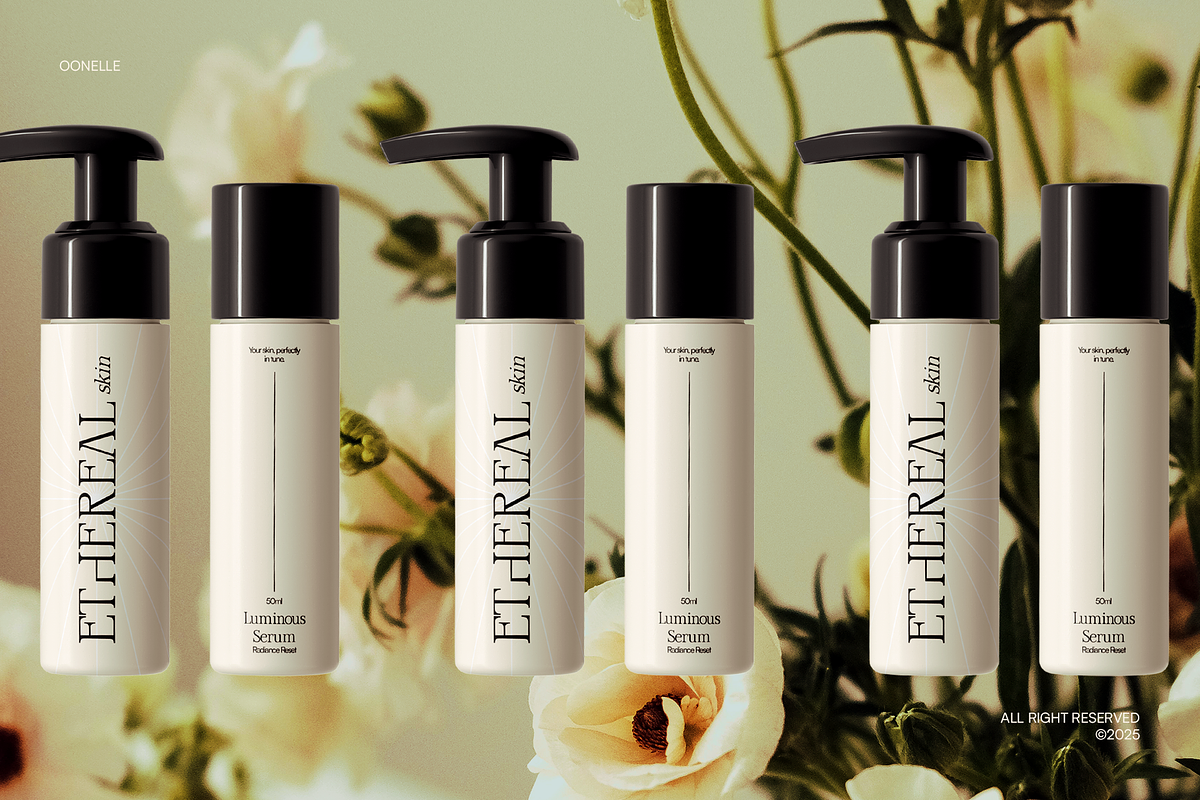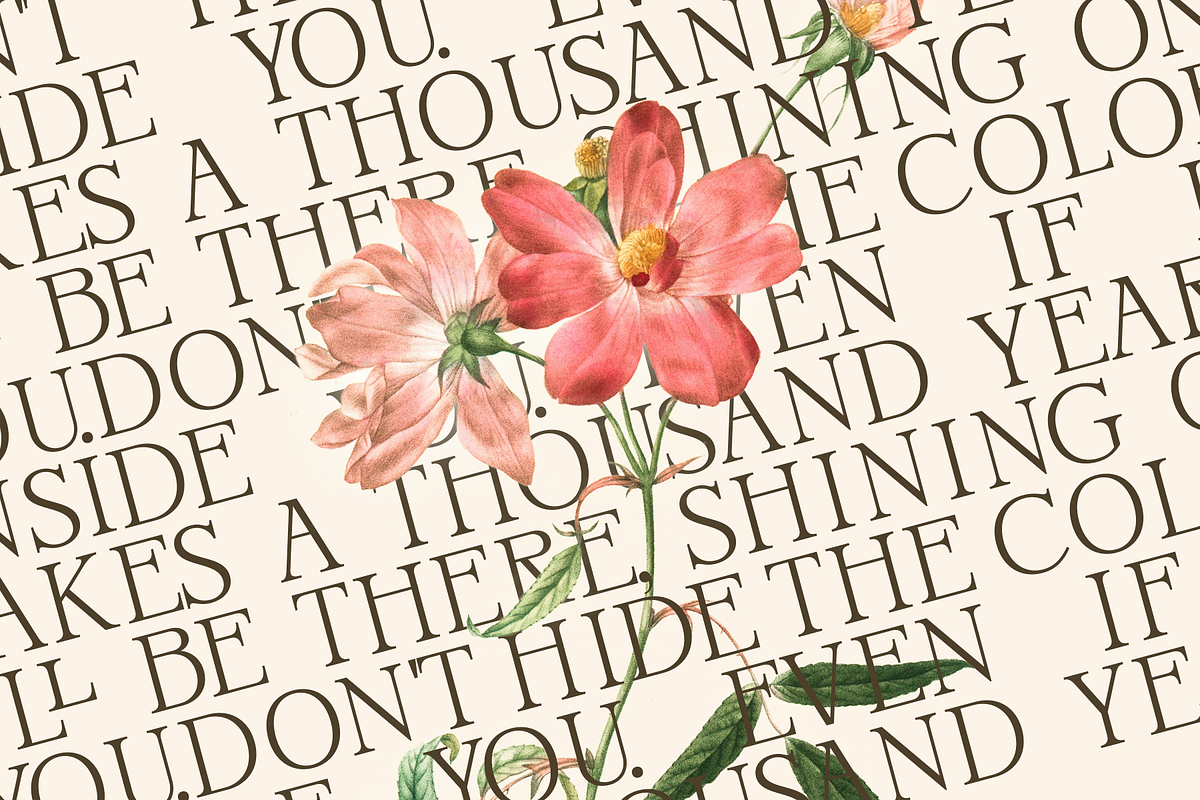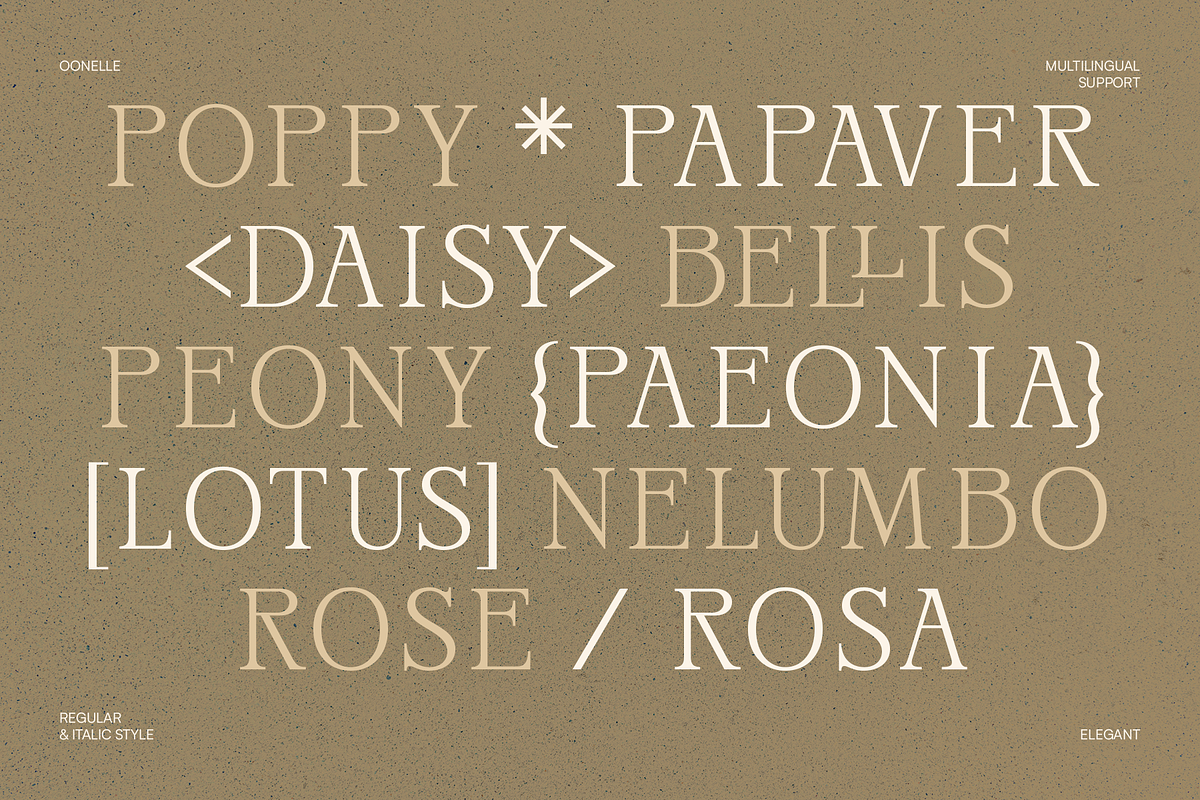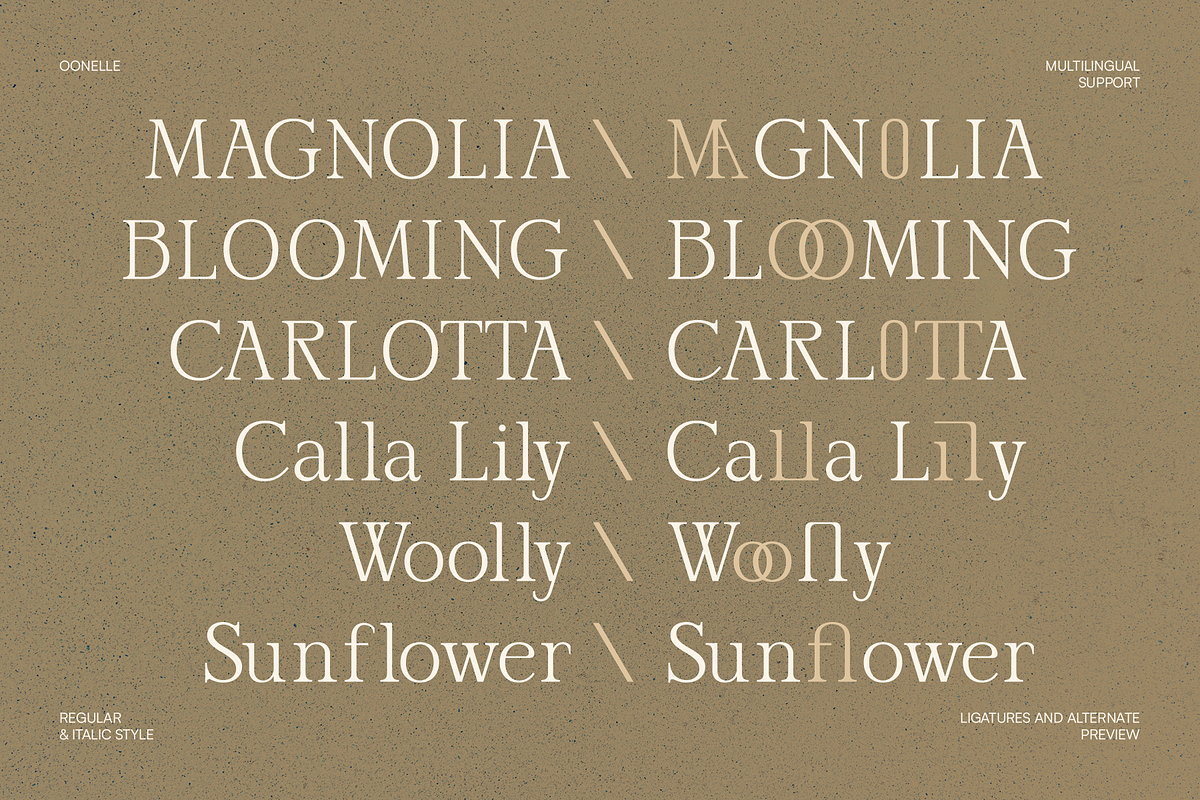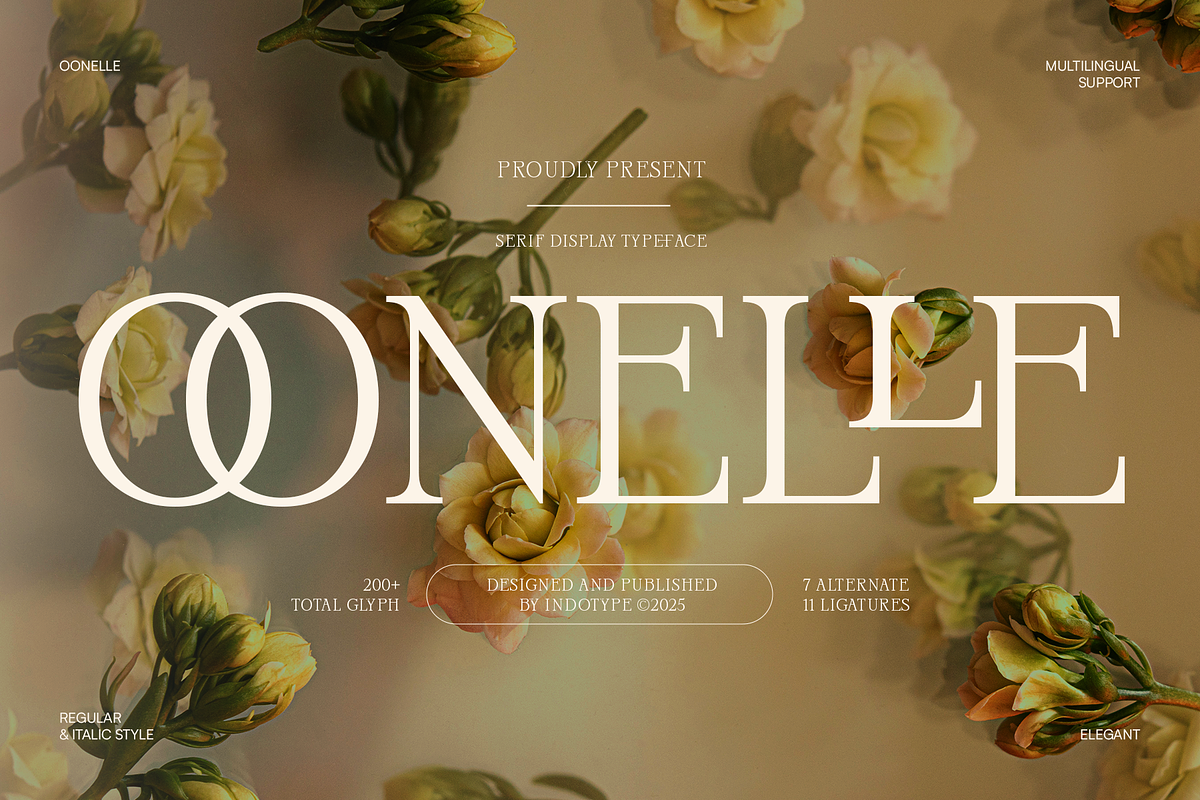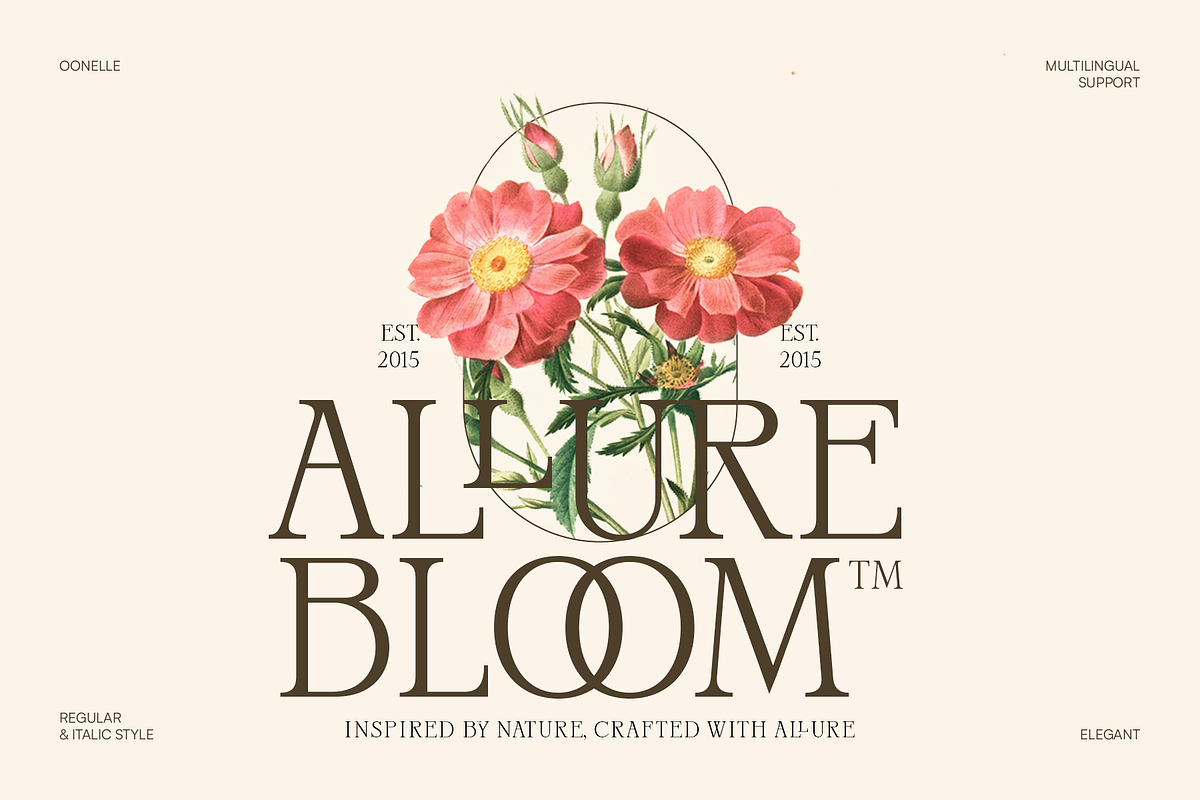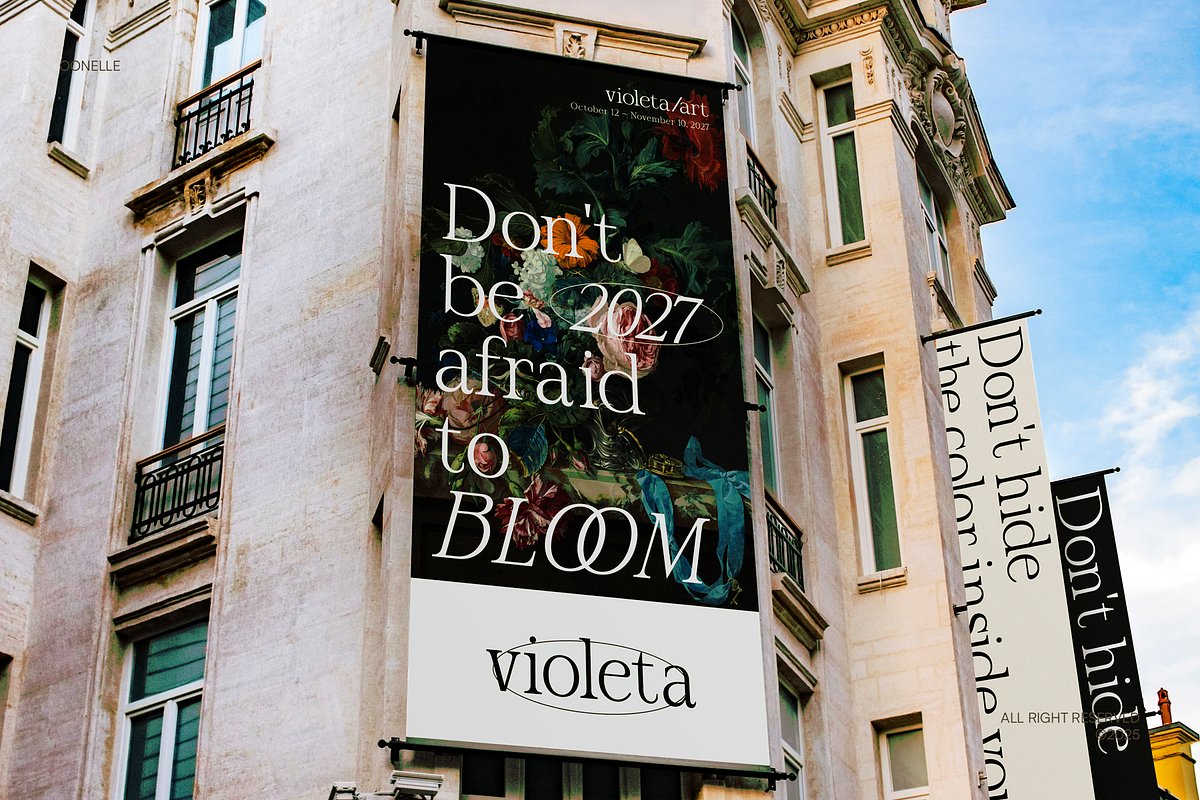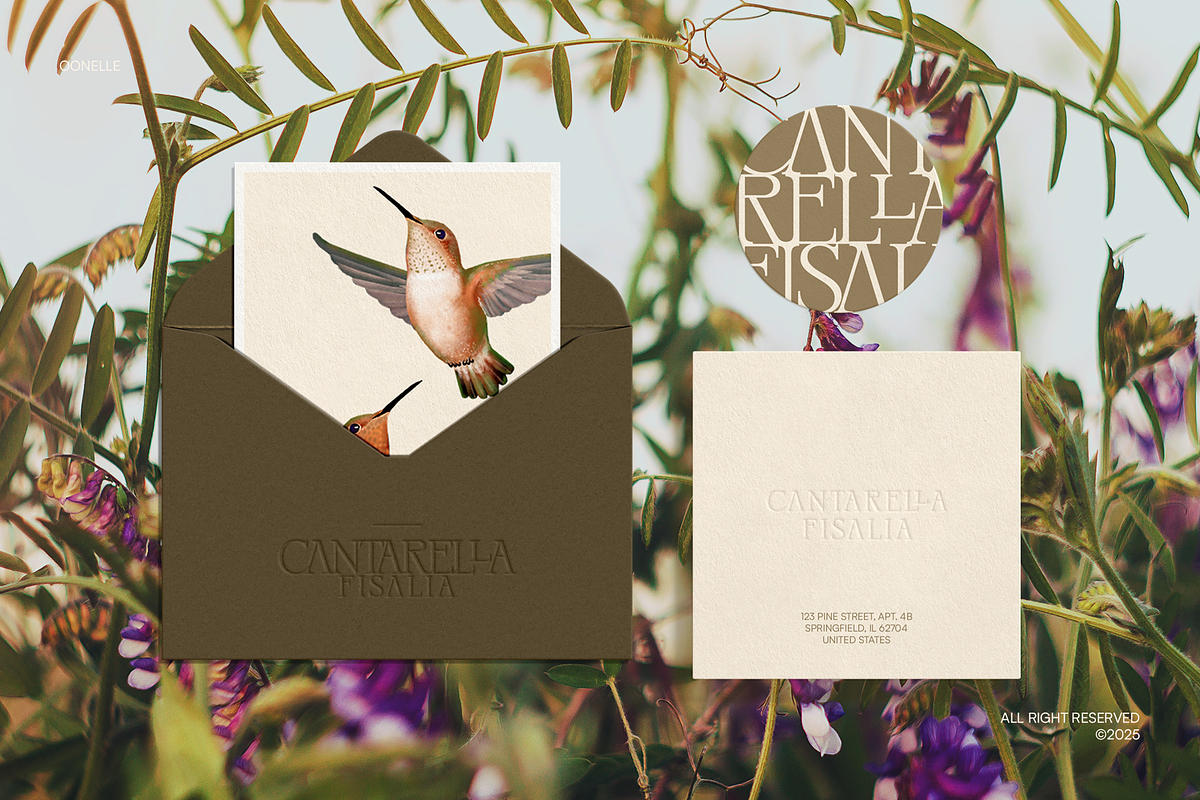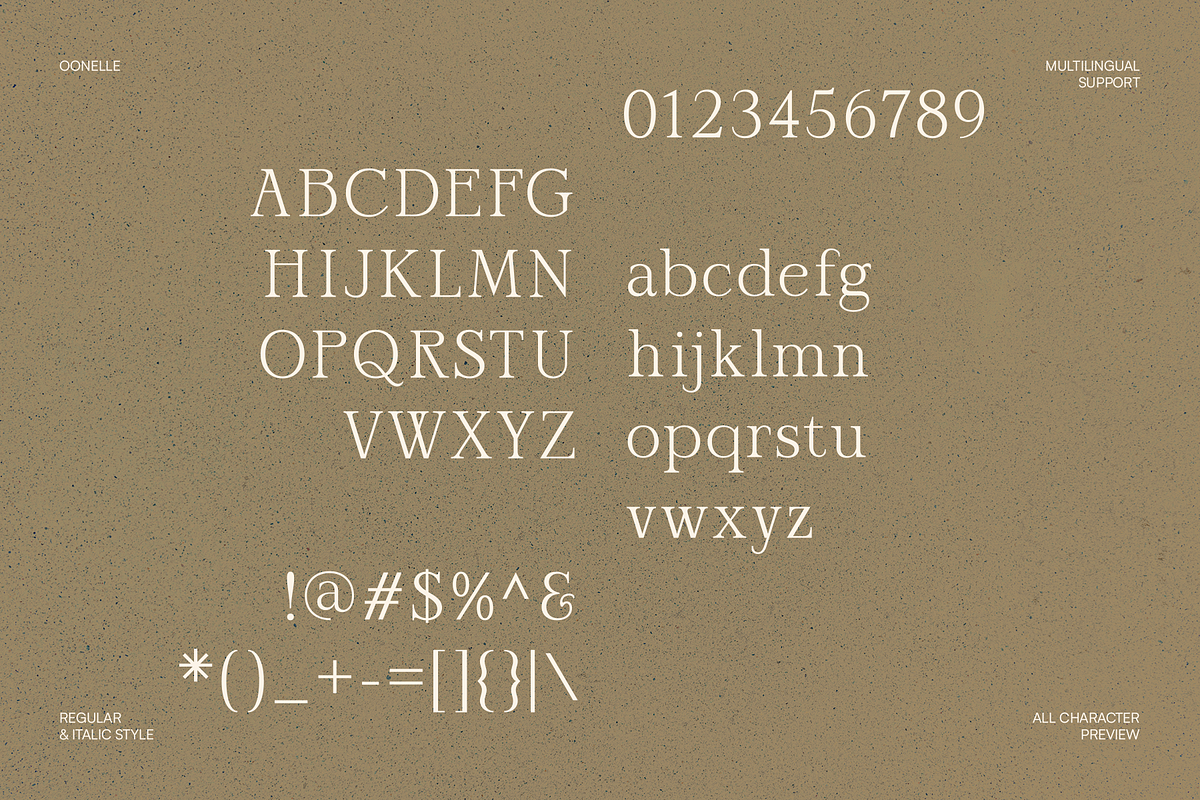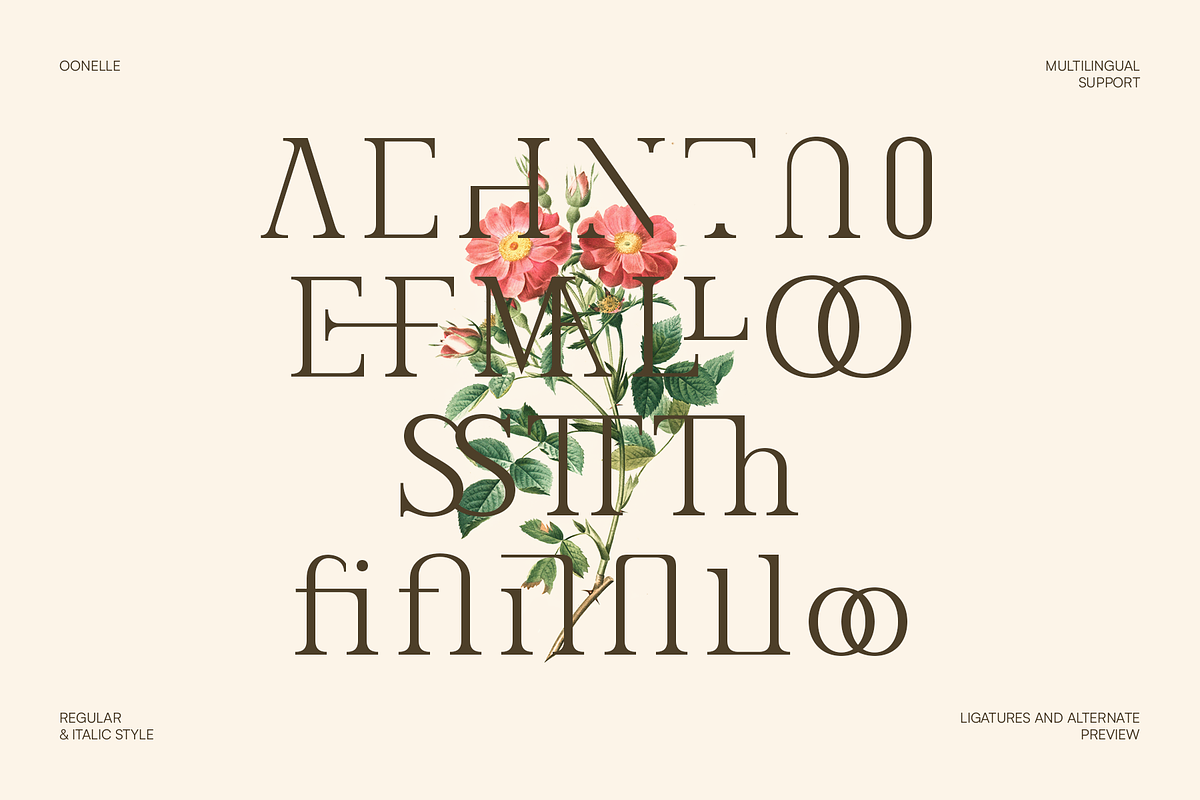
Oonelle - Elegant Serif Display
Oonelle is an elegant serif display typeface crafted for refined visual storytelling. Its timeless letterforms balance graceful curves and crisp structure, exuding a sense of sophistication that feels both modern and classic. Designed with 7 alternates and 11 ligatures, Oonelle offers expressive versatility, allowing each word to flow beautifully across layouts. Featuring regular and italic styles with 200+ glyphs and full multilingual support, Oonelle is perfect for editorial design, branding, invitations, and luxury packaging. The overlapping “O” detail in its logo presentation captures its essence — unity, elegance, and artistic poise. Published by Indotype in 2025, Oonelle transforms typography into a refined visual statement — ideal for those seeking a high-fashion, magazine-style, and timeless serif aesthetic that radiates confidence and beauty.